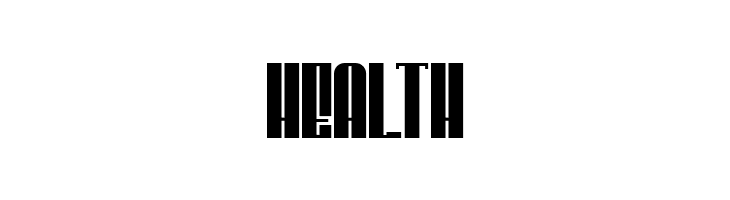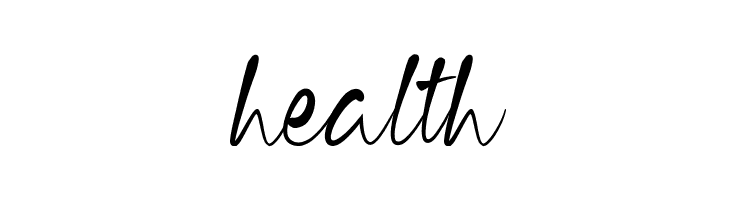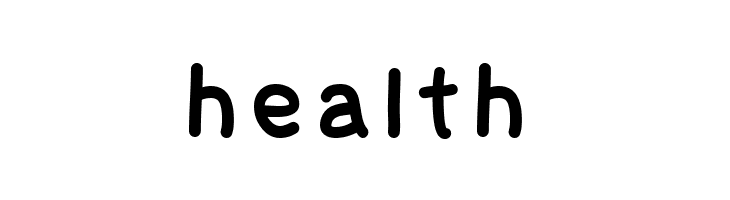
A fluid and elegant handwritten font with smooth curves and flowing lines.
An elegant, flowing script font with intricate loops and swirls.
An elegant and flowing script font with intricate loops and flourishes.
A playful, rounded font with smooth curves and a friendly appearance.
A lively cursive font with smooth, flowing strokes and a playful, elegant style.
A playful, casual handwritten font with irregular strokes and a lively feel.
A playful, casual cursive font with a smooth, handwritten style.
A bold, condensed font with high contrast and a modern geometric style.